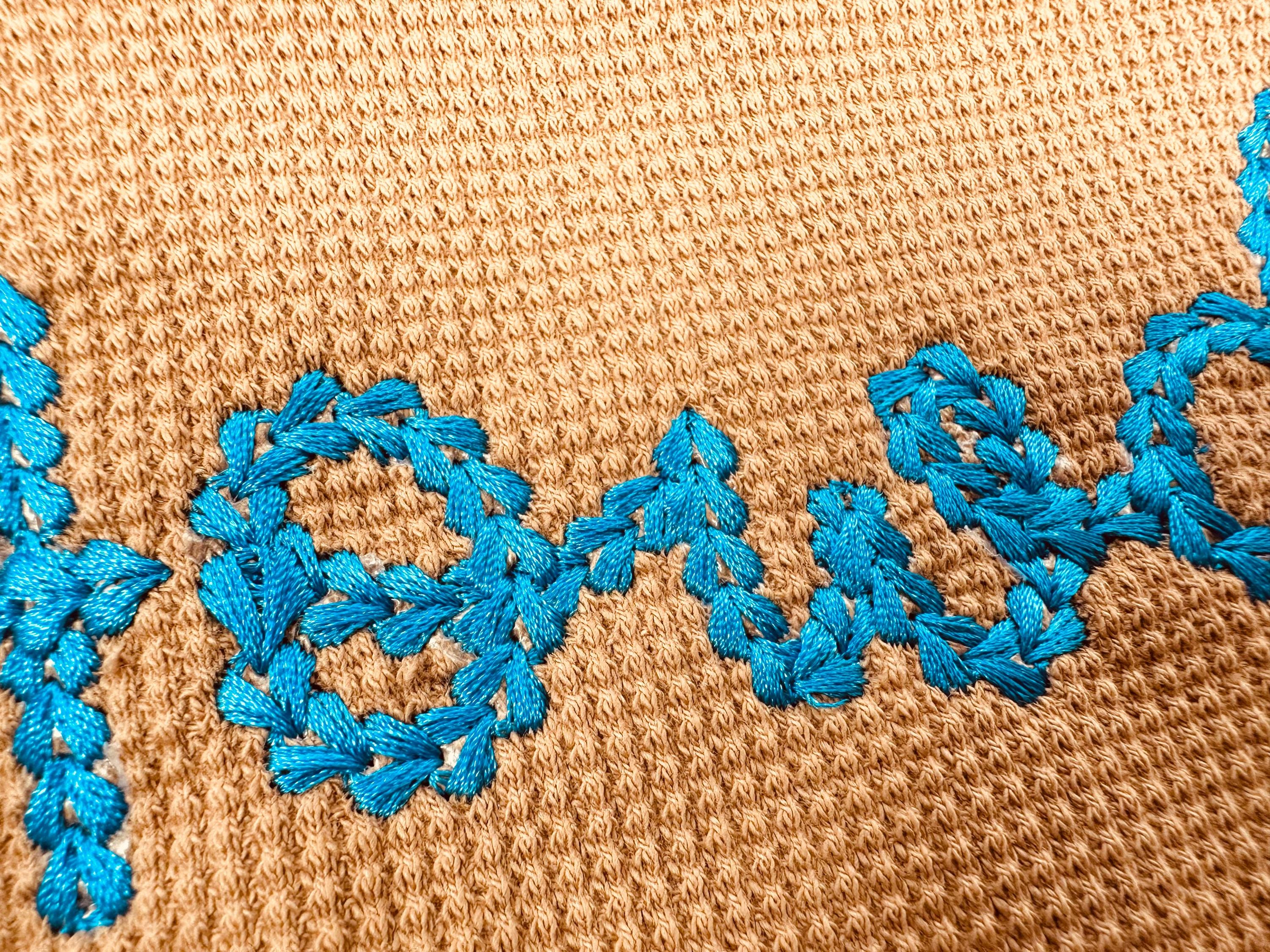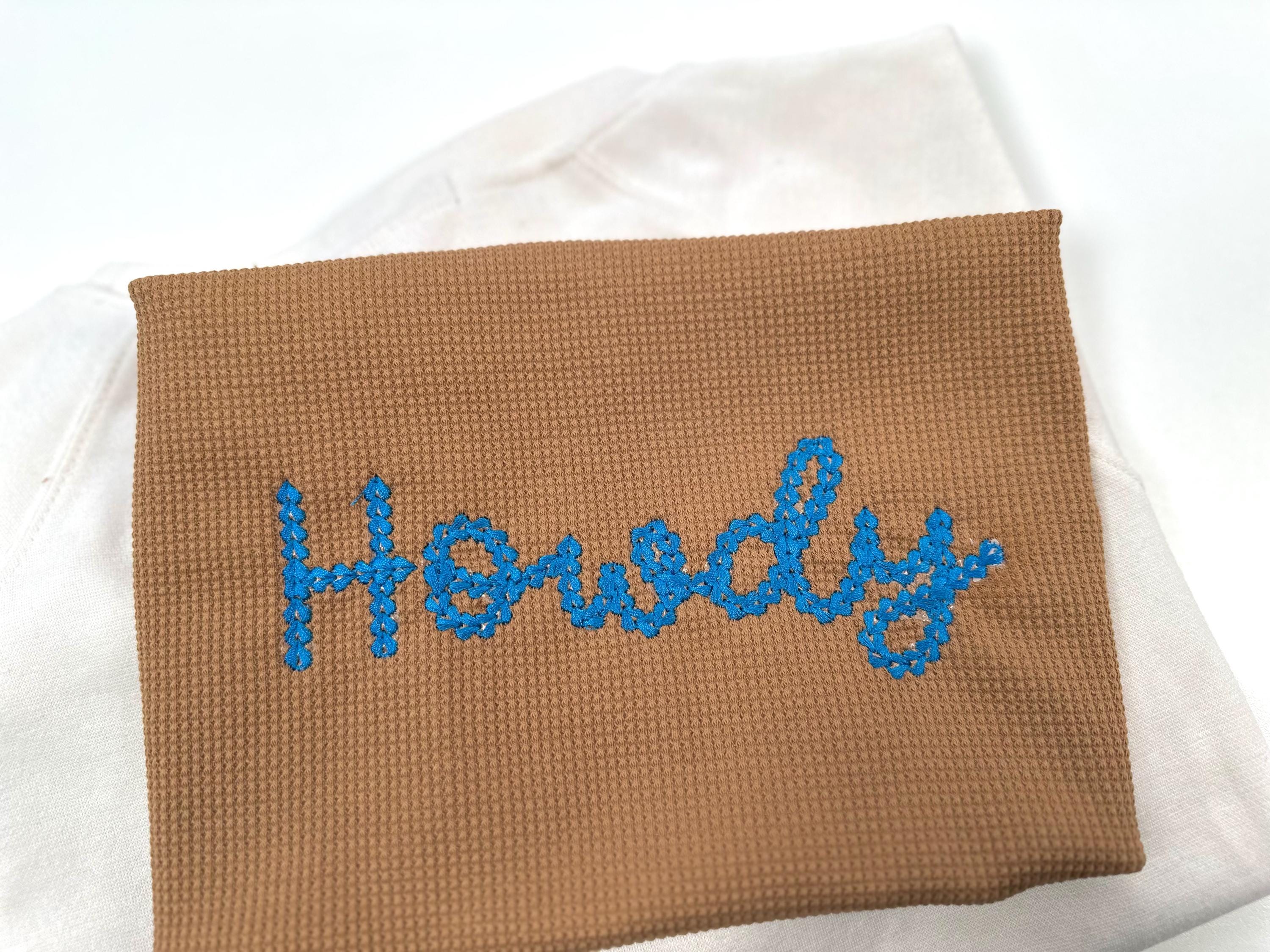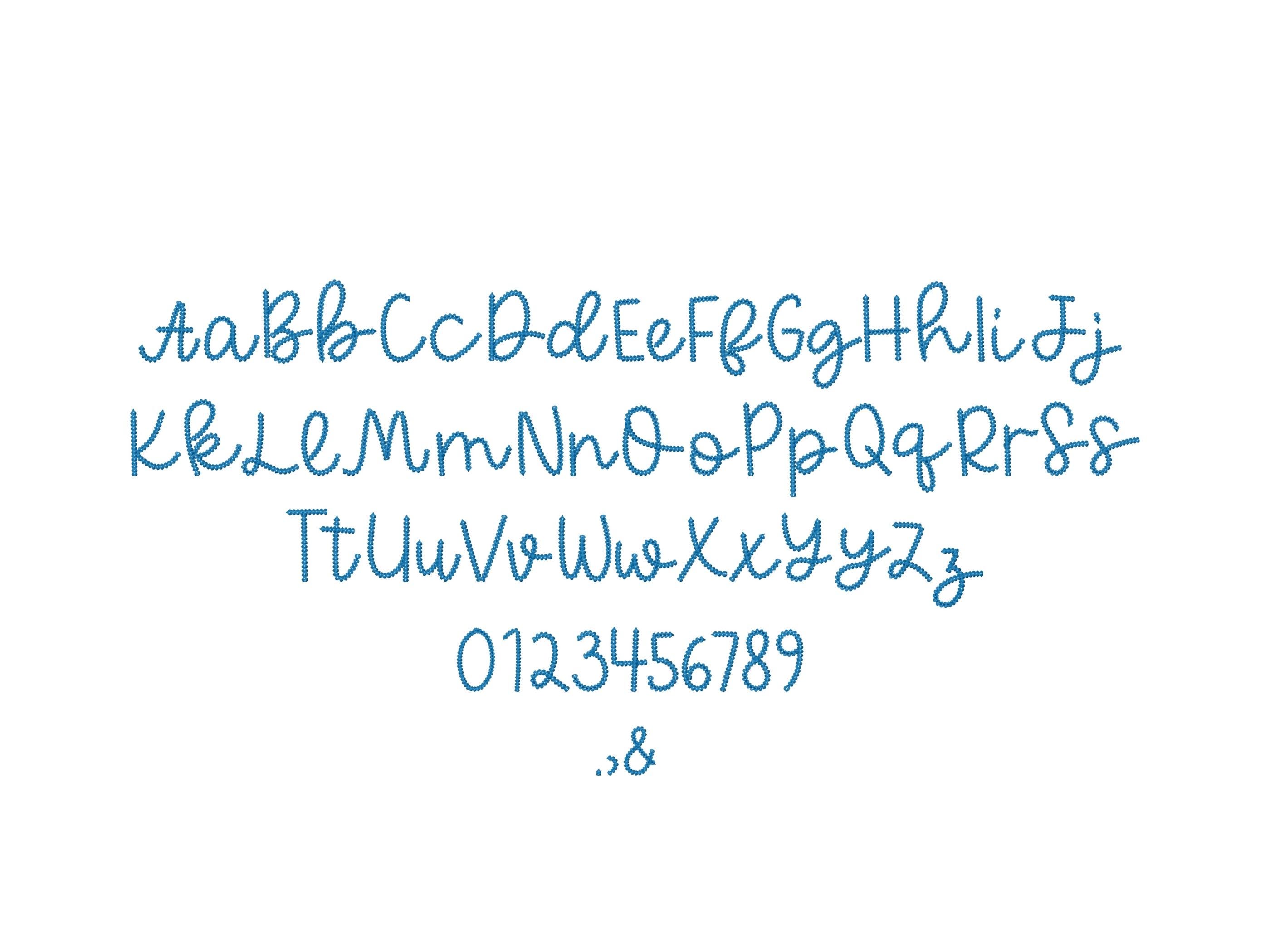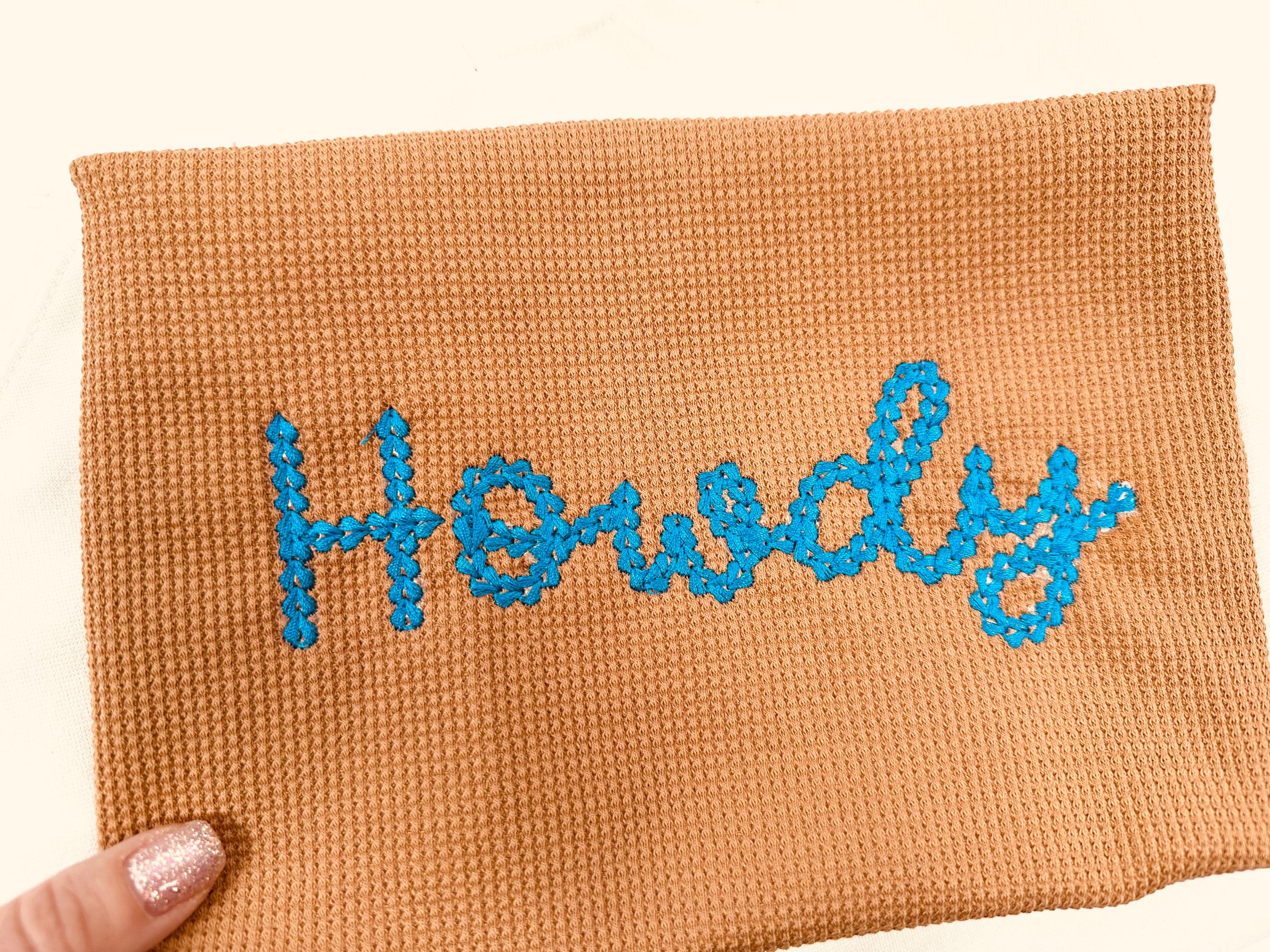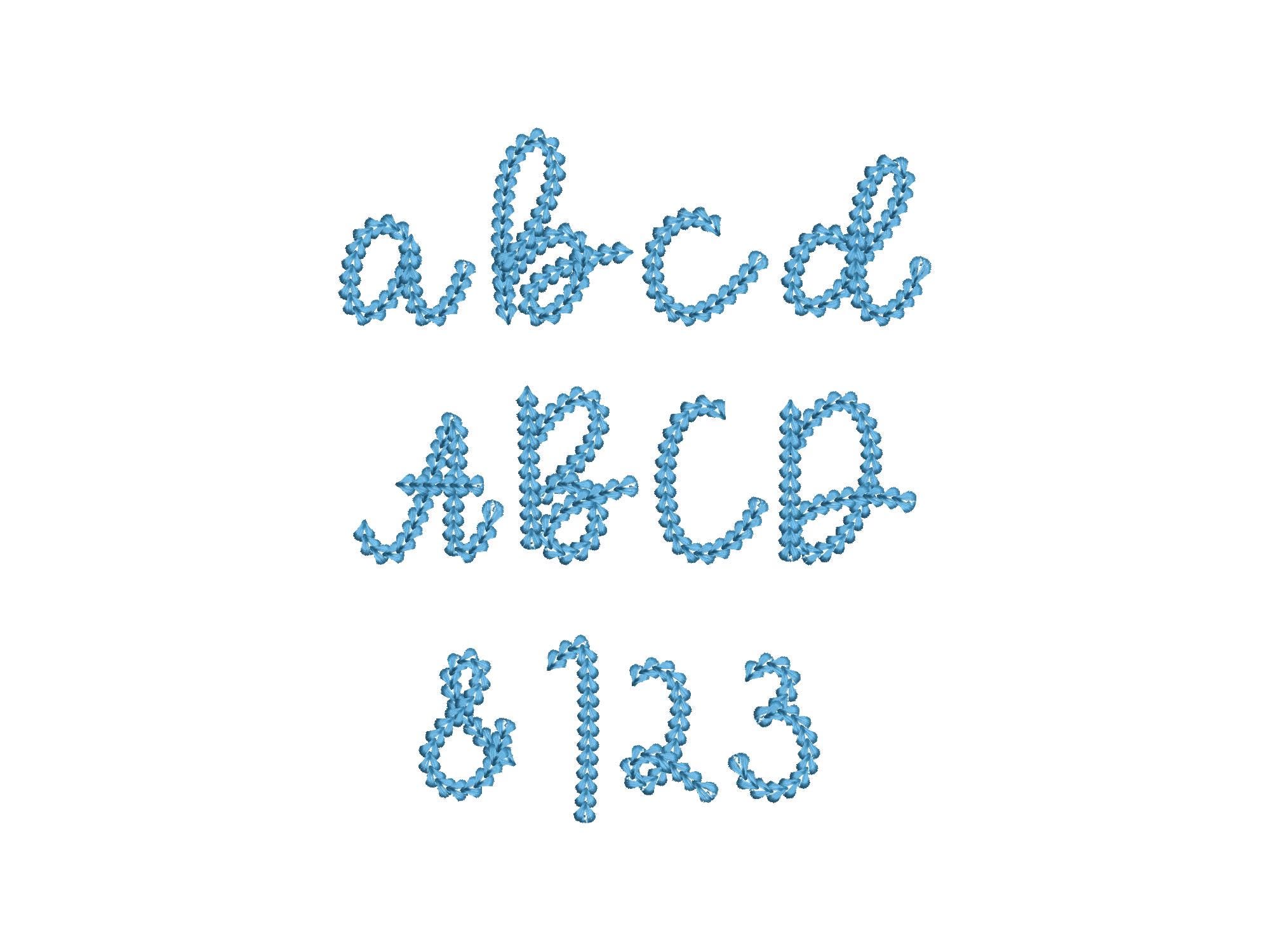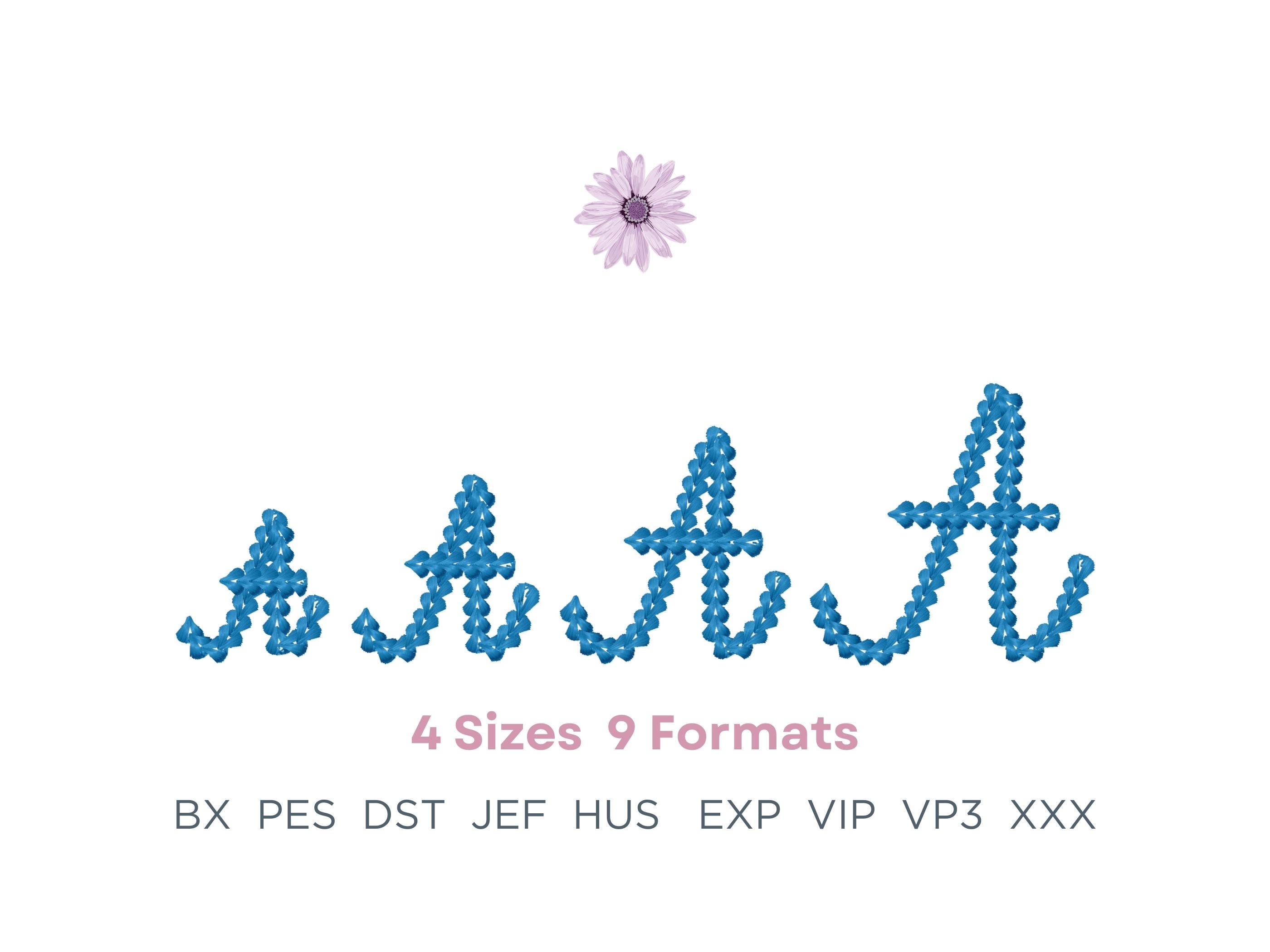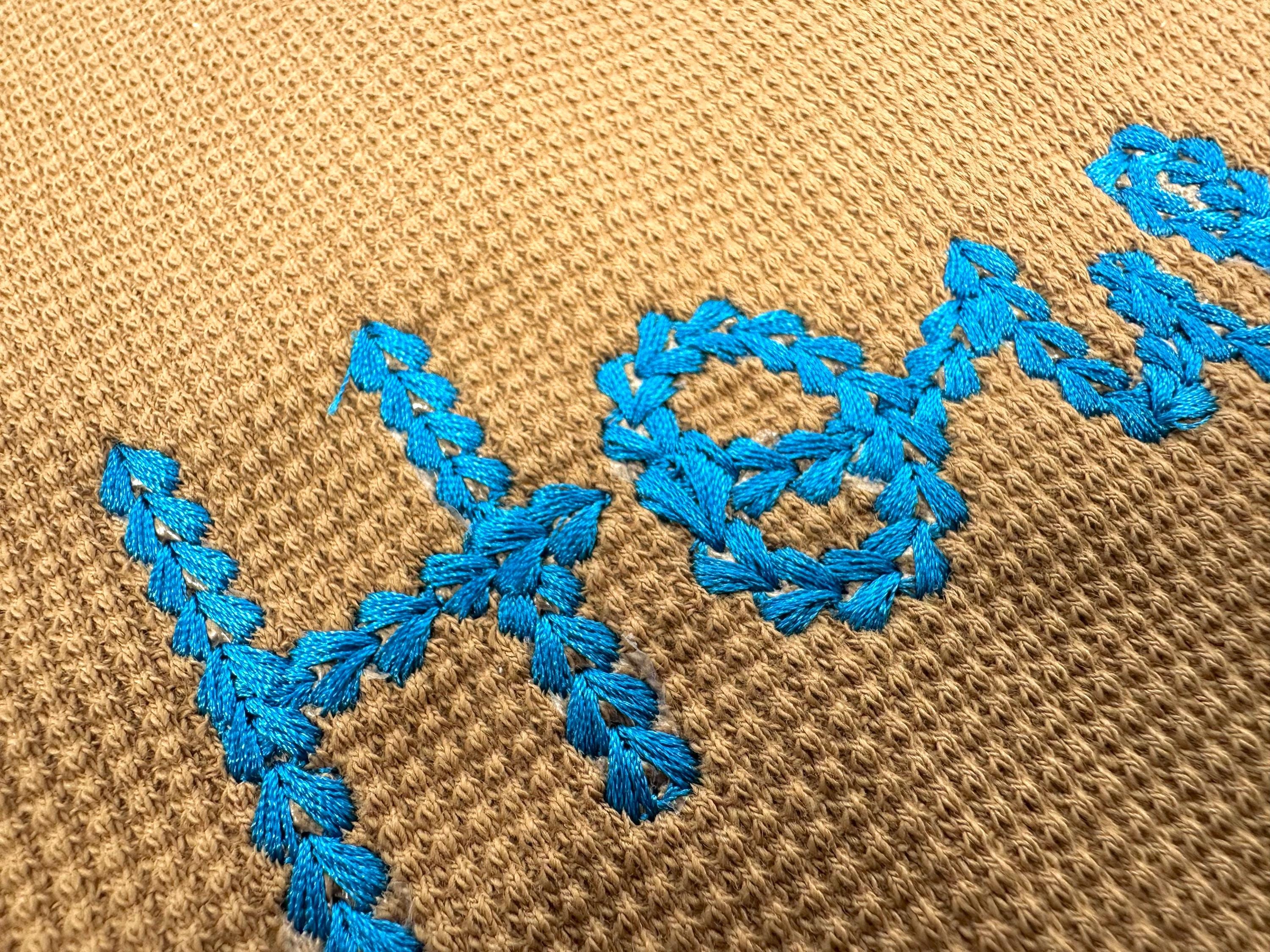
Extra Bold Chain FONT machine embroidery designs handwritten script chain stitch alphabet Monogram knit sweater effect sizes 1.8 to 3.5in
Entire alphabet uppercase and lowercase letters, numbers, and punctuation.